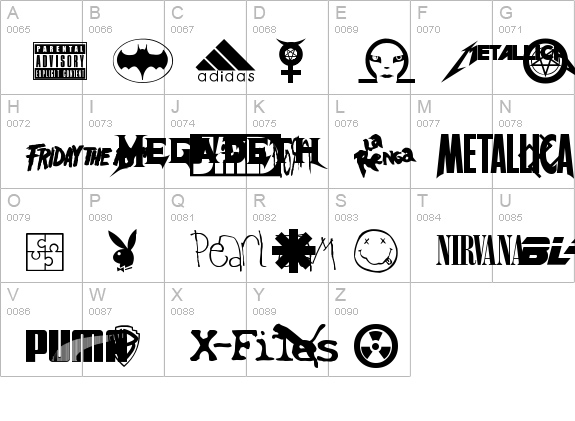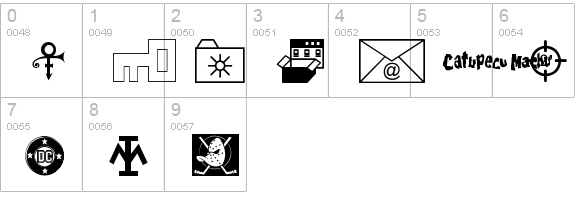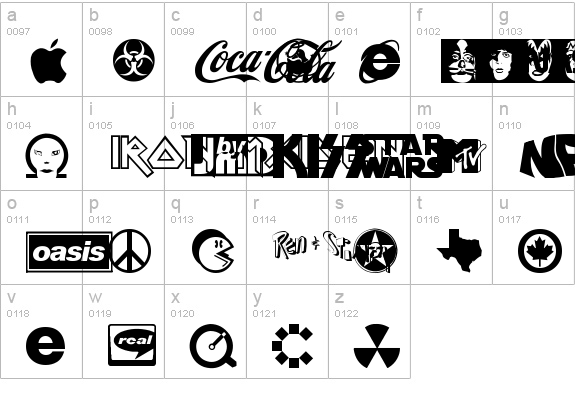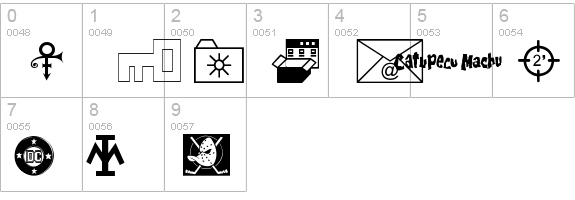
Famous Logos font is a versatile and eye-catching typeface designed to make your designs stand out. This unique font features bold and modern letterforms that are perfect for adding a touch of elegance and sophistication to your projects. Whether you're working on branding, advertising, packaging, or any other creative endeavor, Famous Logos font is sure to make a lasting impression. The best part? Famous Logos font is completely free to download at FontsMarket.com. With just a few clicks, you can add this stunning font to your collection and start using it in all your design projects. Don't miss out on the opportunity to elevate your work with the stylish and impactful Famous Logos font - download it today and take your designs to the next level!